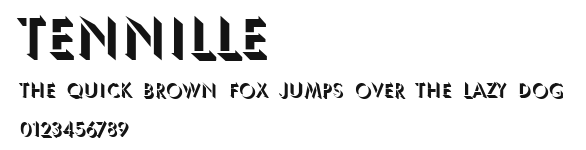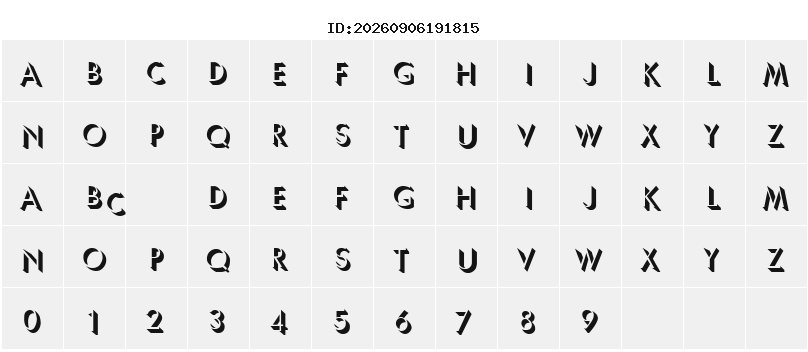
• Font Name: TENNILLE
• Full Font Name: TENNILLE Regular
About TENNILLE.ttf
TENNILLE.ttf is a modern, elegant sans-serif font designed for ultimate readability and visual harmony. Perfect for branding, headlines, web design, and print materials.